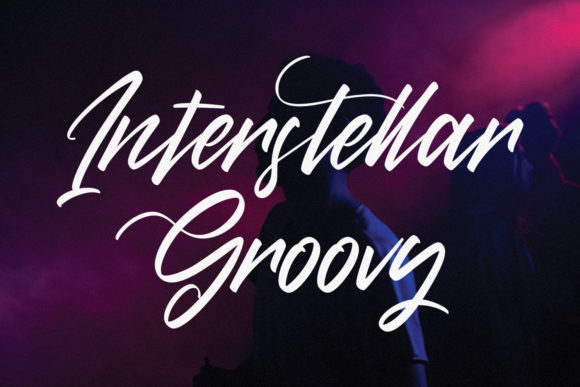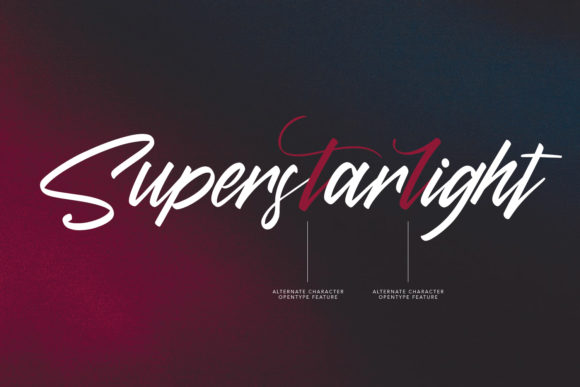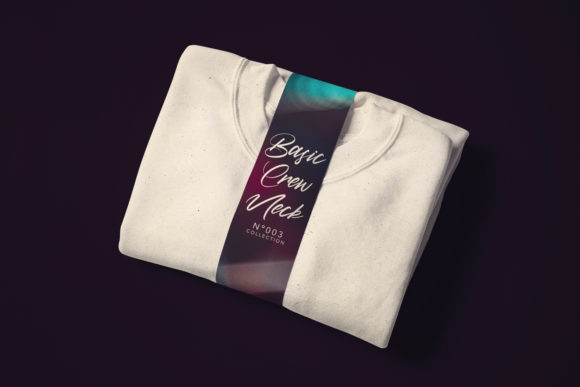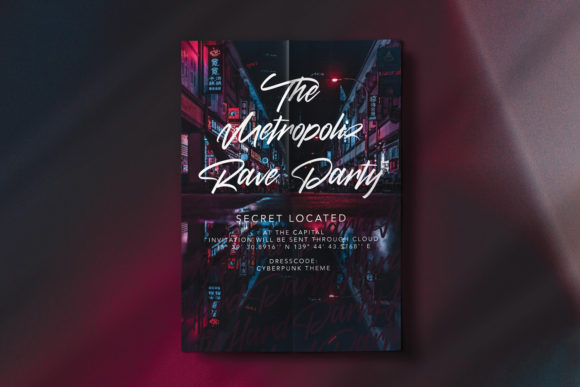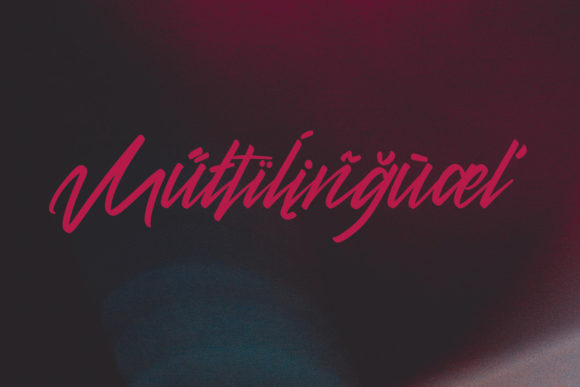
Diettersen Font
About Diettersen Font
Introducing “Diettersen,” an exquisite and flowing handwritten font that radiates elegance and beauty. With its versatile and captivating style, “Diettersen” is the perfect choice for a wide range of design projects. From enchanting wedding invitations to beautiful stationary art and eye-catching social media posts, this font will elevate your creations to new levels of sophistication and charm.
“Diettersen” boasts a flowing and graceful handwriting style that adds a sense of refinement and authenticity to every design. Each letter is carefully crafted with precision, showcasing the font’s artistic finesse and attention to detail.
Imagine using “Diettersen” to create stunning and luxurious wedding invitations that leave a lasting impression on your guests.
In stationary art, “Diettersen” becomes a symbol of creativity and elegance, transforming ordinary paper into captivating works of art.
For eye-catching social media posts, “Diettersen” brings a touch of sophistication and allure, captivating your audience and creating a memorable impression.
With its versatility and exquisite appeal, “Diettersen” becomes an invaluable asset for all your creative endeavors.
In conclusion, “Diettersen” is more than just a font; it’s a celebration of elegance and beauty. With its flowing and versatile style, “Diettersen” becomes an essential companion for all your design projects. Fall in love with the captivating allure of “Diettersen” and watch as your creations come alive with sophistication and charm. Let your imagination soar in the exquisite and flowing embrace of “Diettersen,” the handwritten font that defines luxury and elevates your designs to new heights of loveliness and artistry.